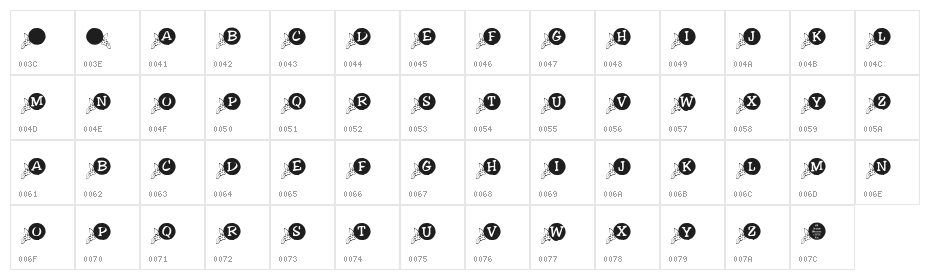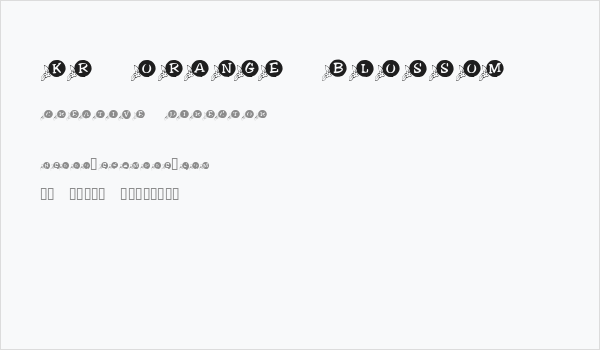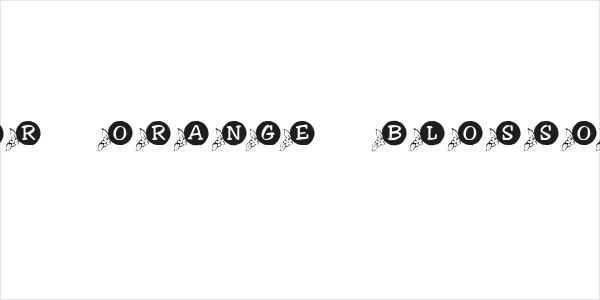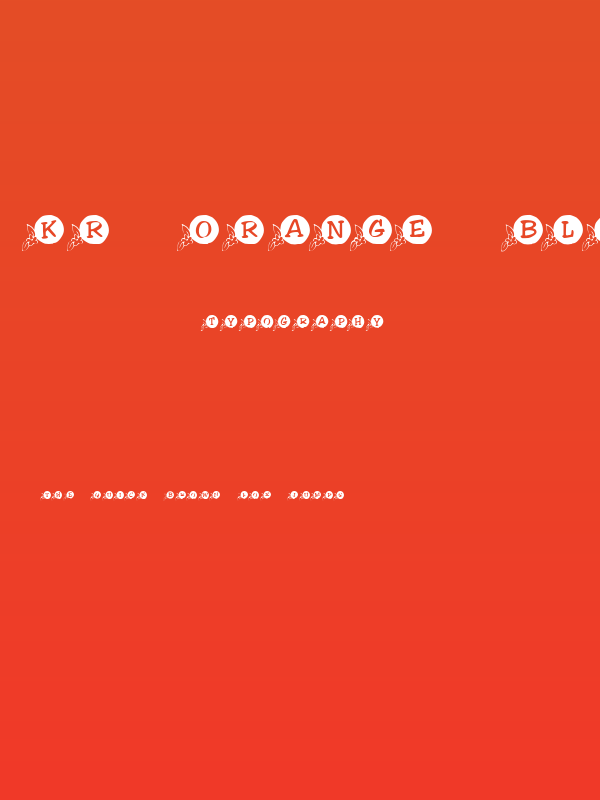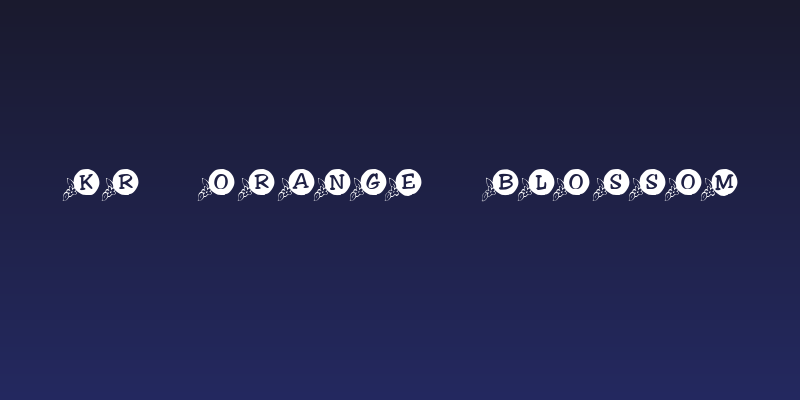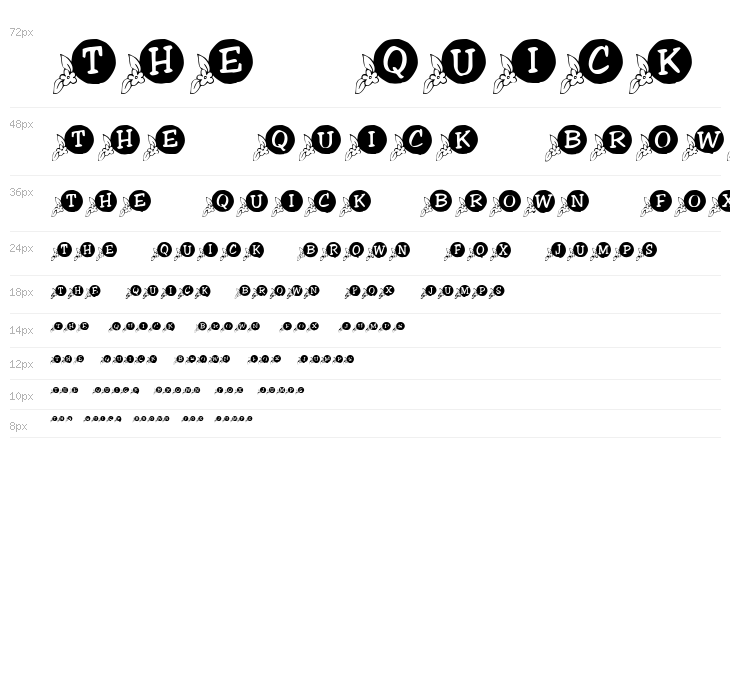
KR Orange Blossom Font
KR Orange Blossom Description
This decorative font features bold, uppercase letters encased in solid black circles, each adorned with a delicate floral motif on the left side. The letters are serifed, adding a touch of elegance and classic appeal. The floral embellishment gives the font a whimsical and playful character, making it ideal for creative and artistic projects. The consistent use of black circles provides a striking contrast against the white letters, enhancing readability while maintaining a unique visual style. The font's design suggests a vintage or retro influence, perfect for projects that require a touch of nostalgia or charm.
| Proposed Projects | Ideal for wedding invitations, greeting cards, vintage-themed posters, and artistic branding. |